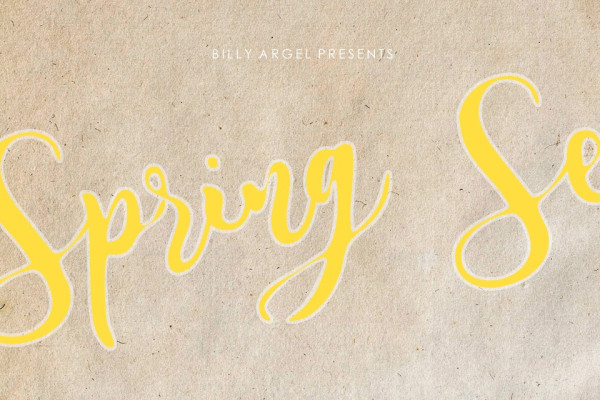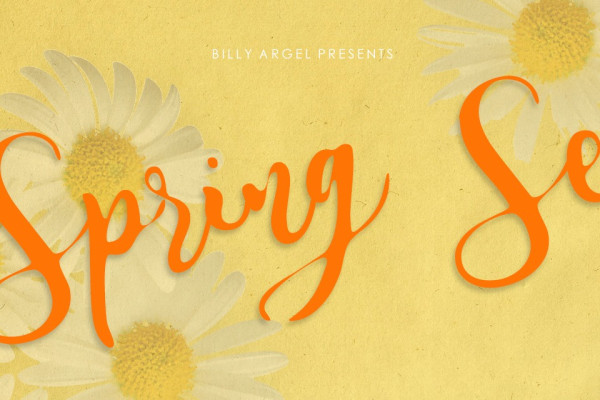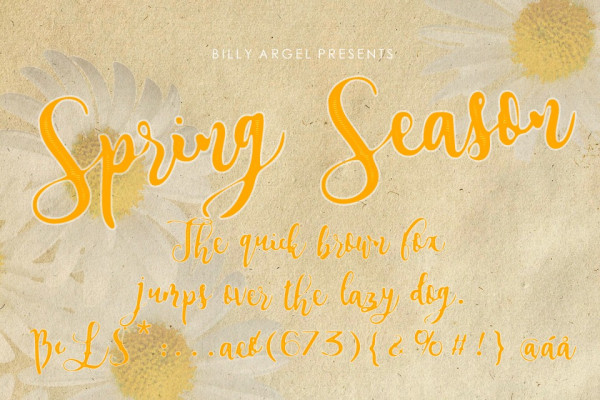
Spring Season Font
Spring Season Font, a luxury script that has its own unique style & modern look. This typeface is perfect for an elegant & luxury logo, book or movie title design, fashion brand, magazine, clothes, lettering, quotes, and so much more.